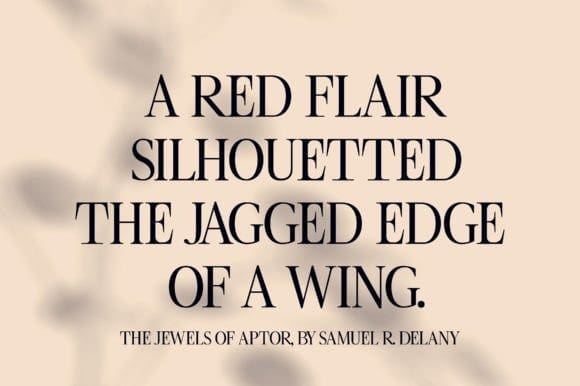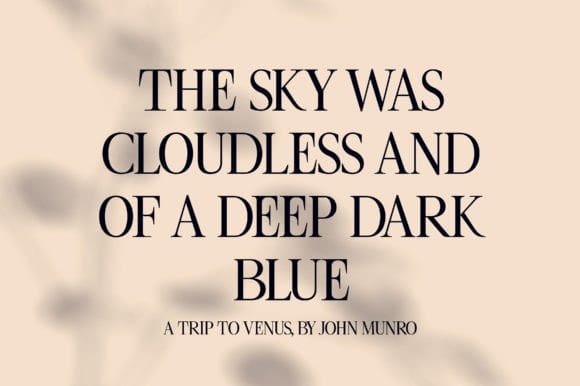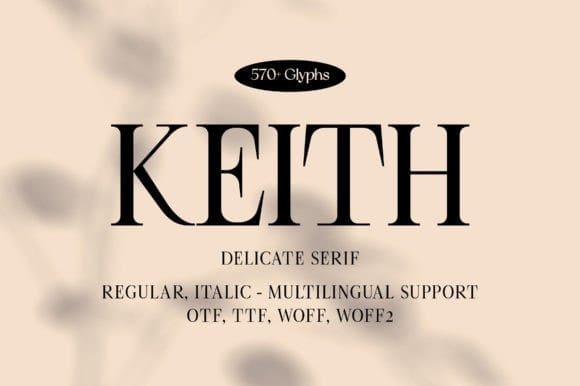
Keith Font
Keith Font, the epitome of timeless sophistication in serif fonts. With its chic and elegant design, KEITH is perfect for designers, typographers, and creatives who appreciate classic aesthetics. Whether you’re designing for print or digital, KEITH is a font that will add a touch of elegance and class to your project.